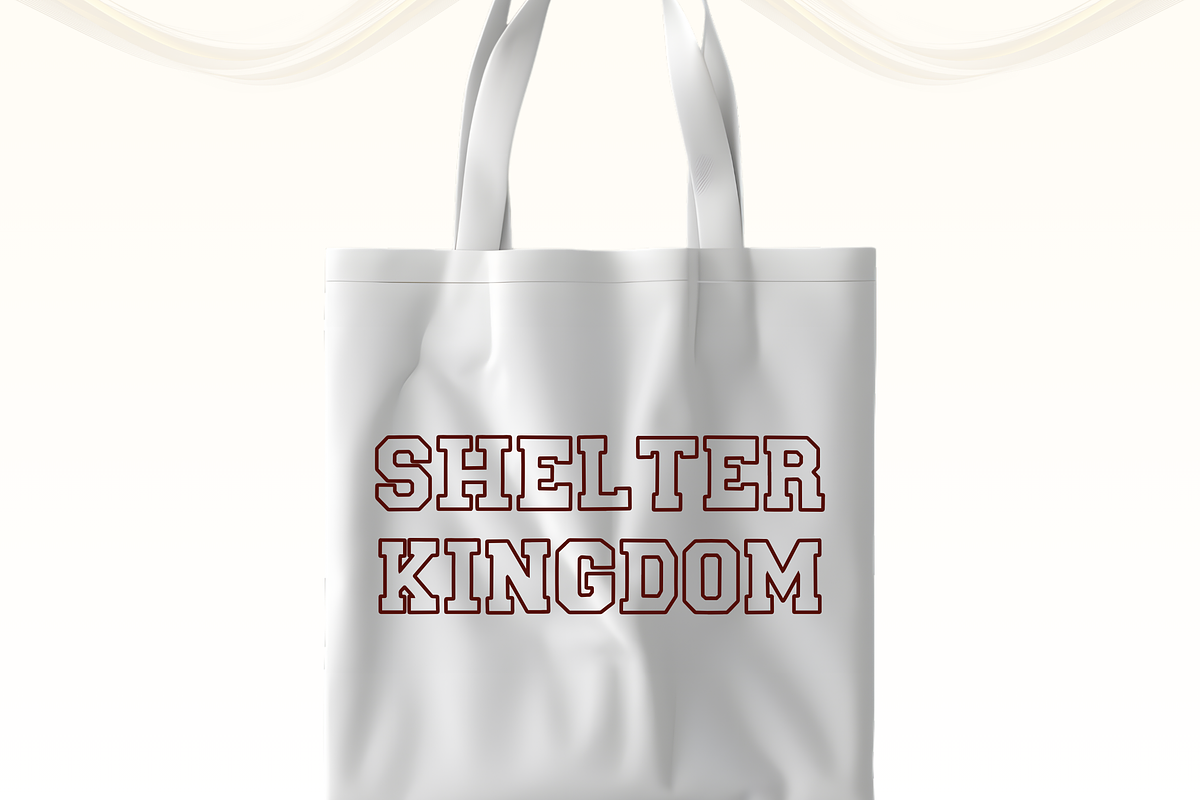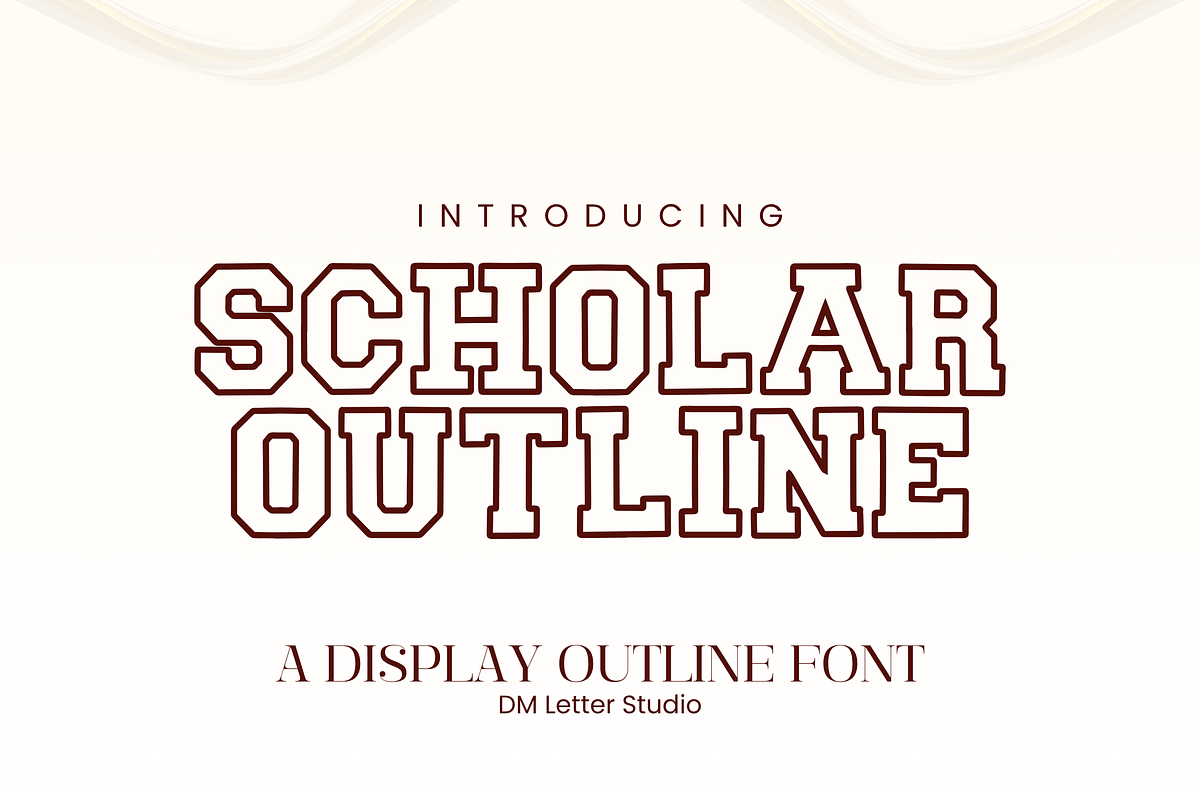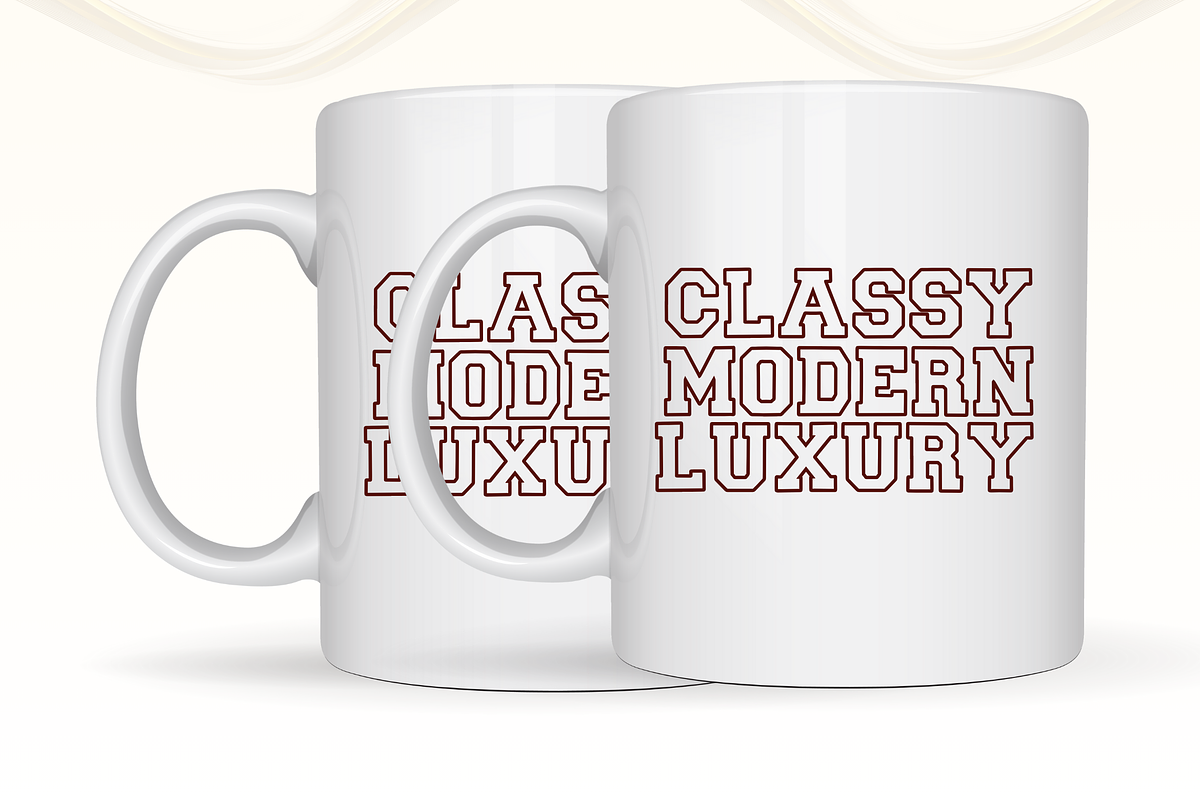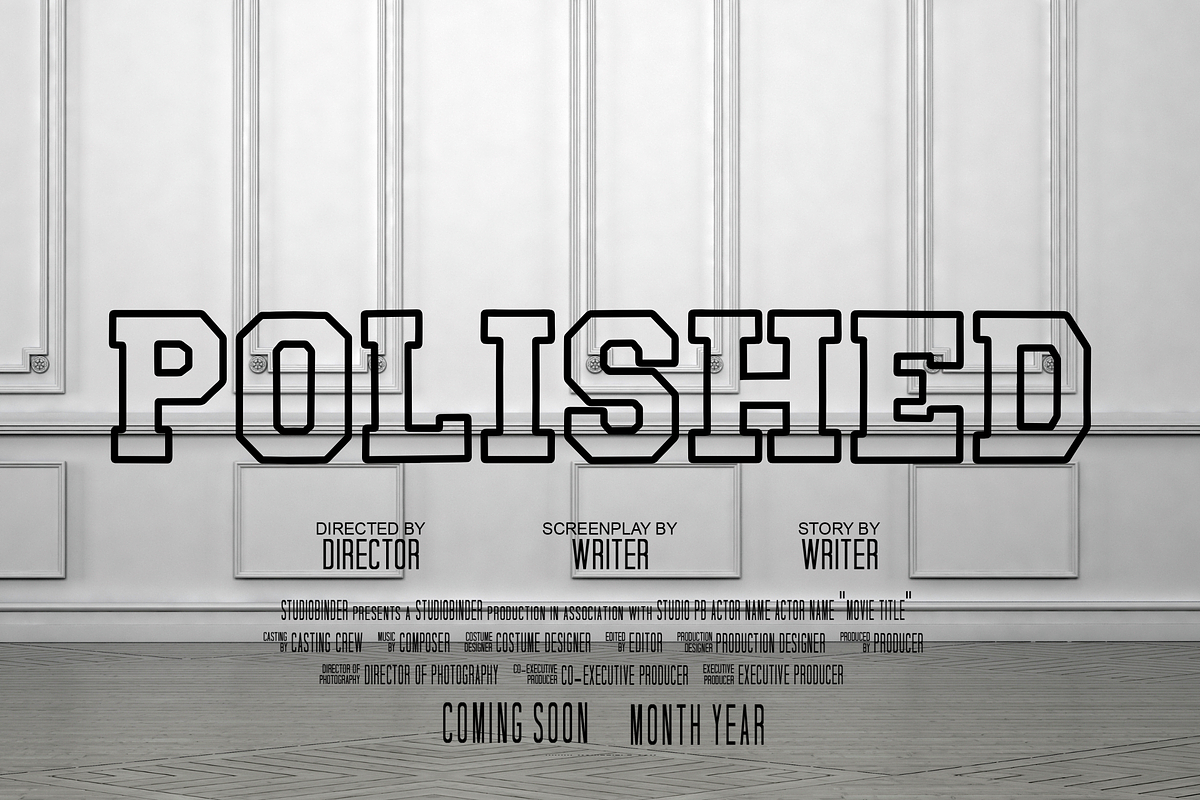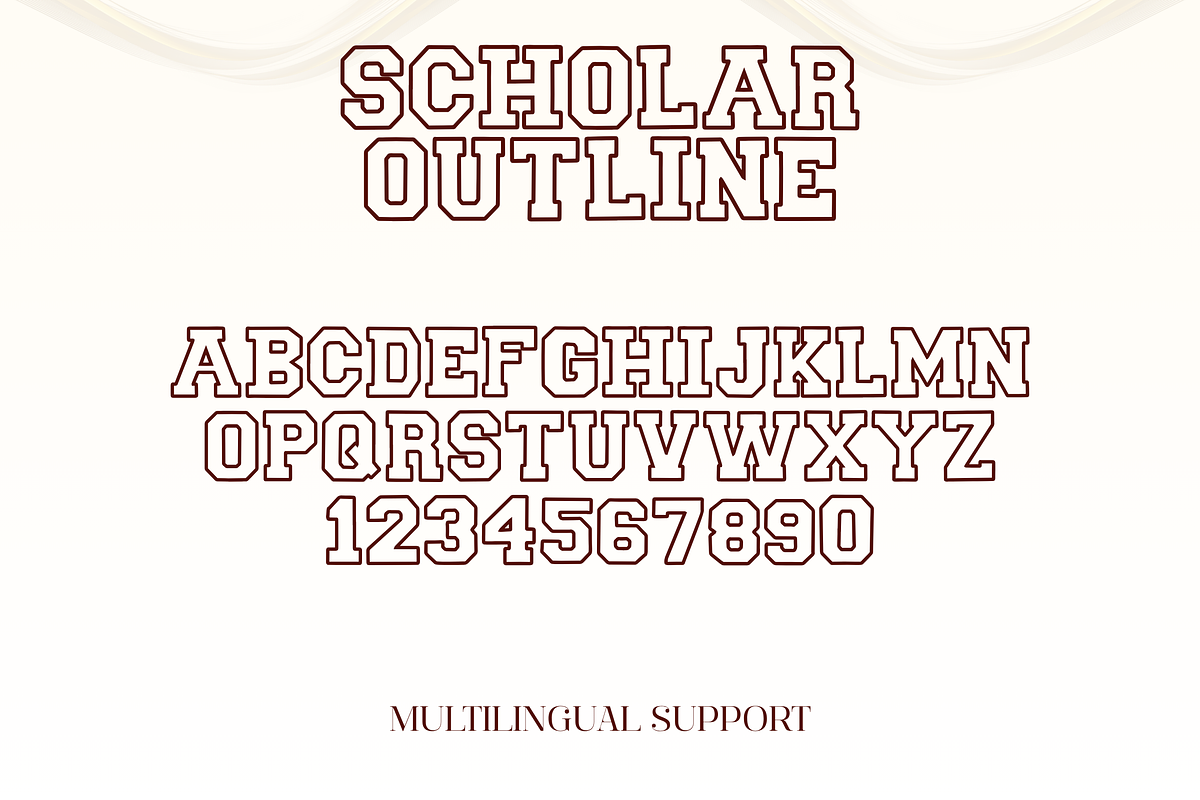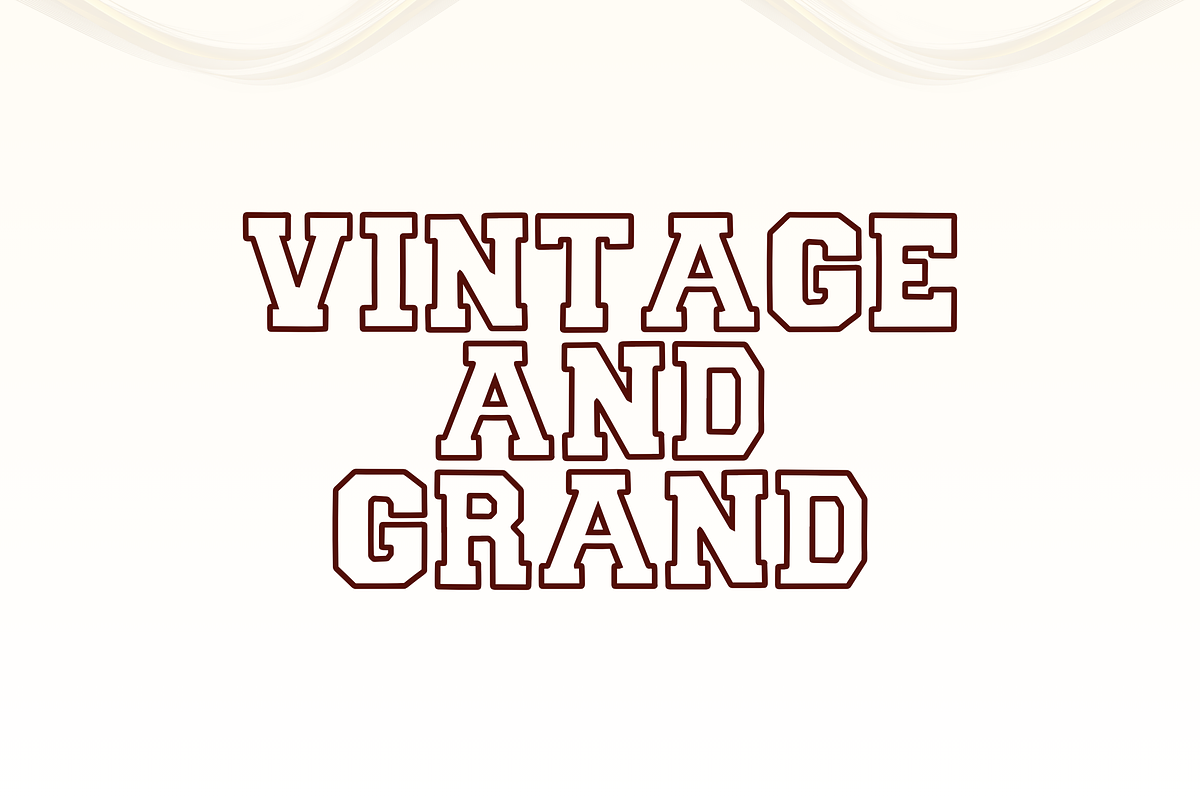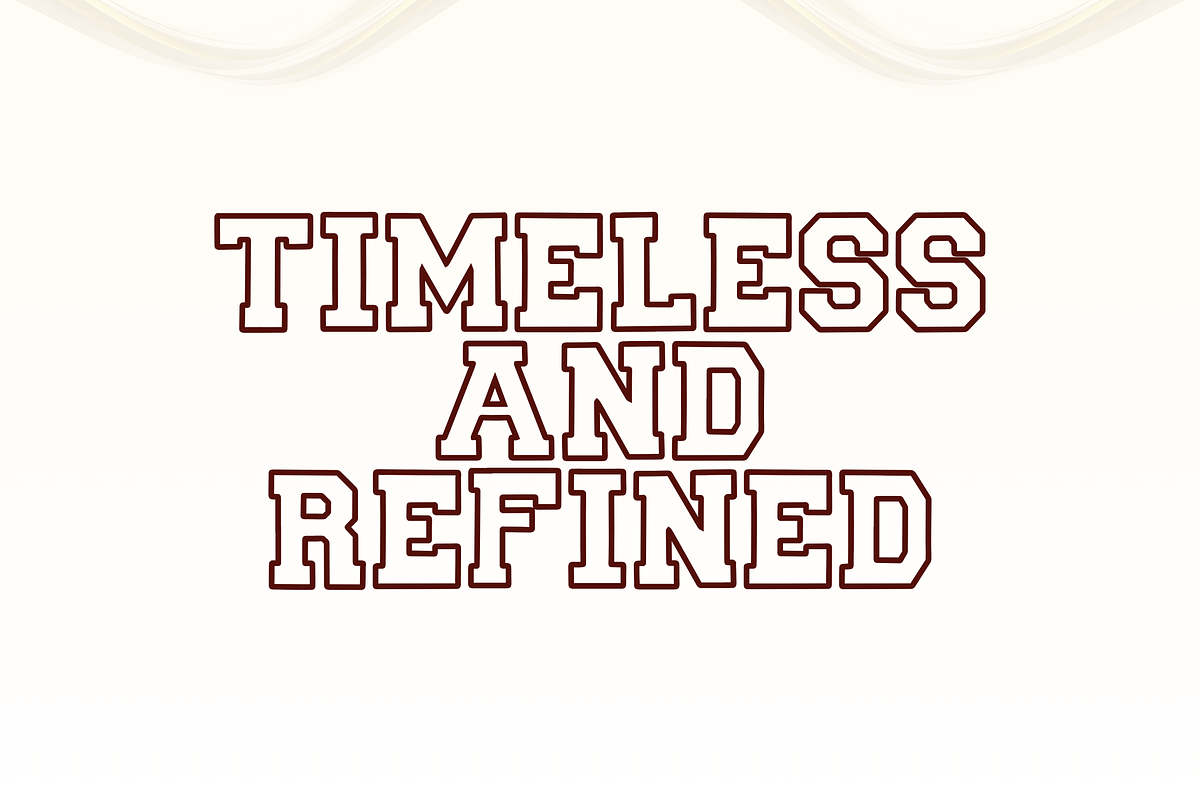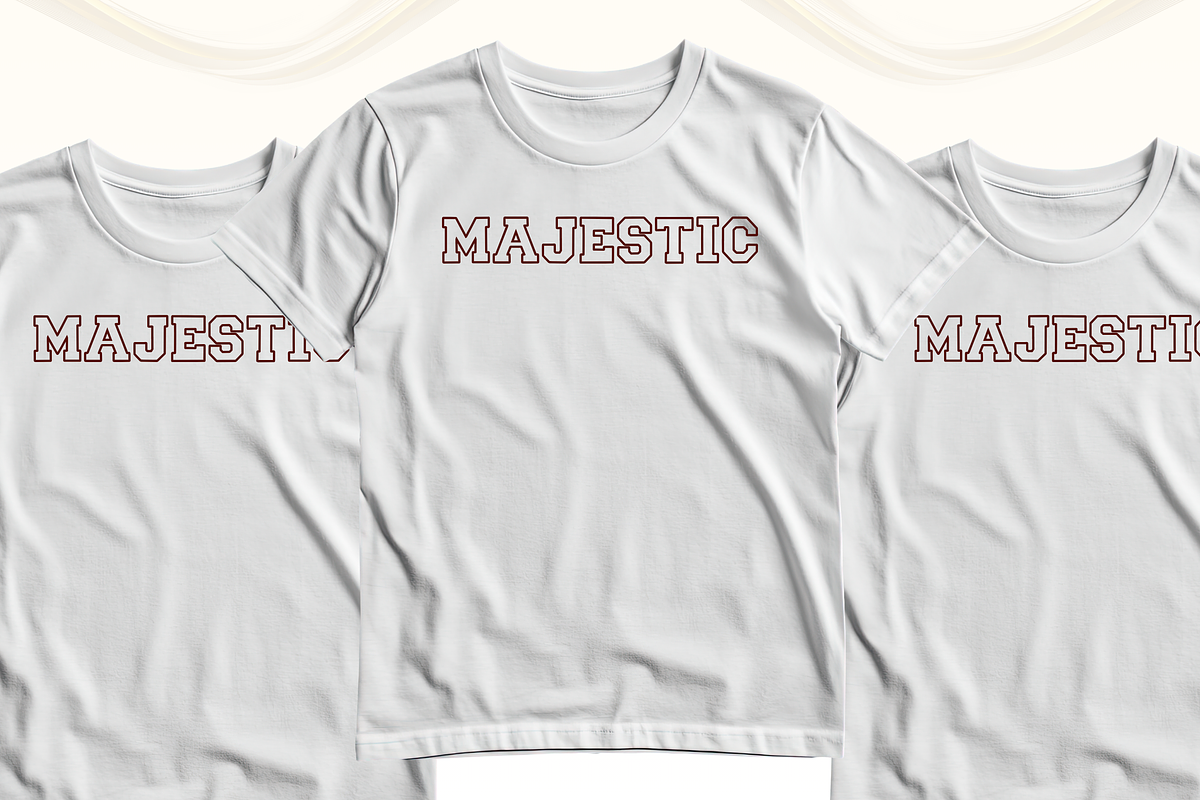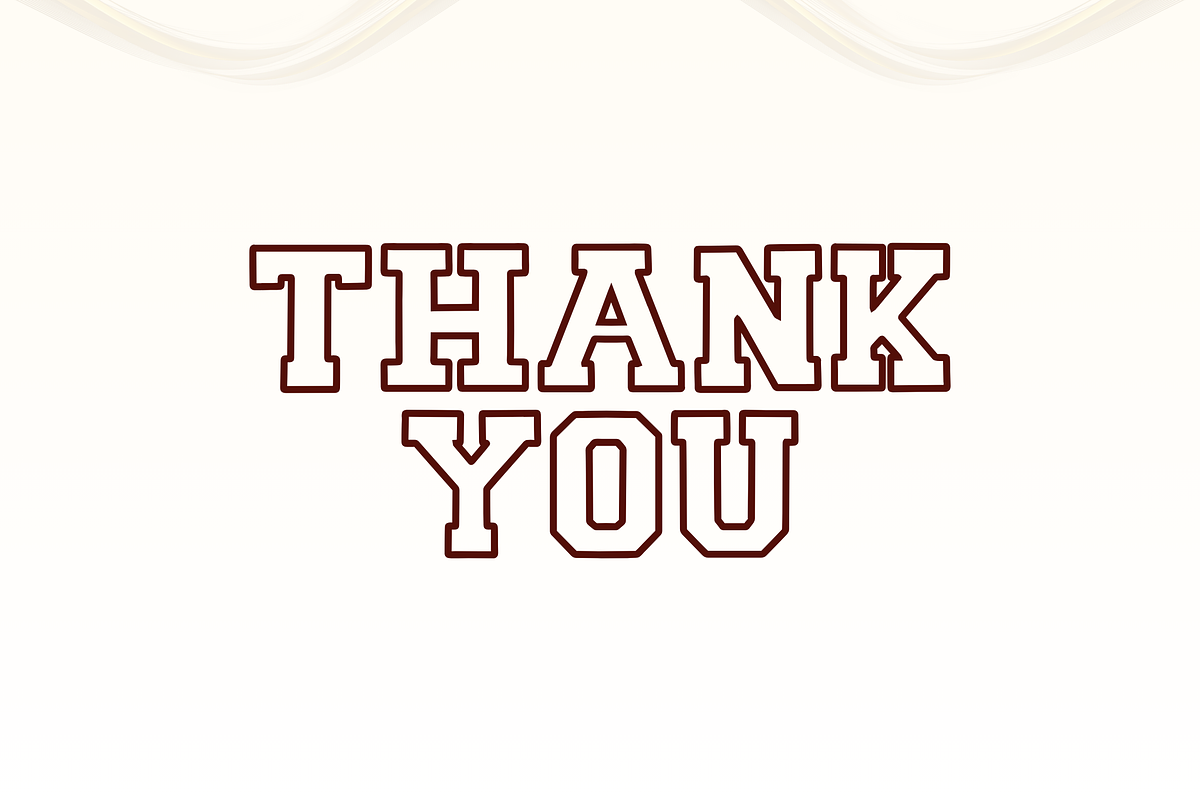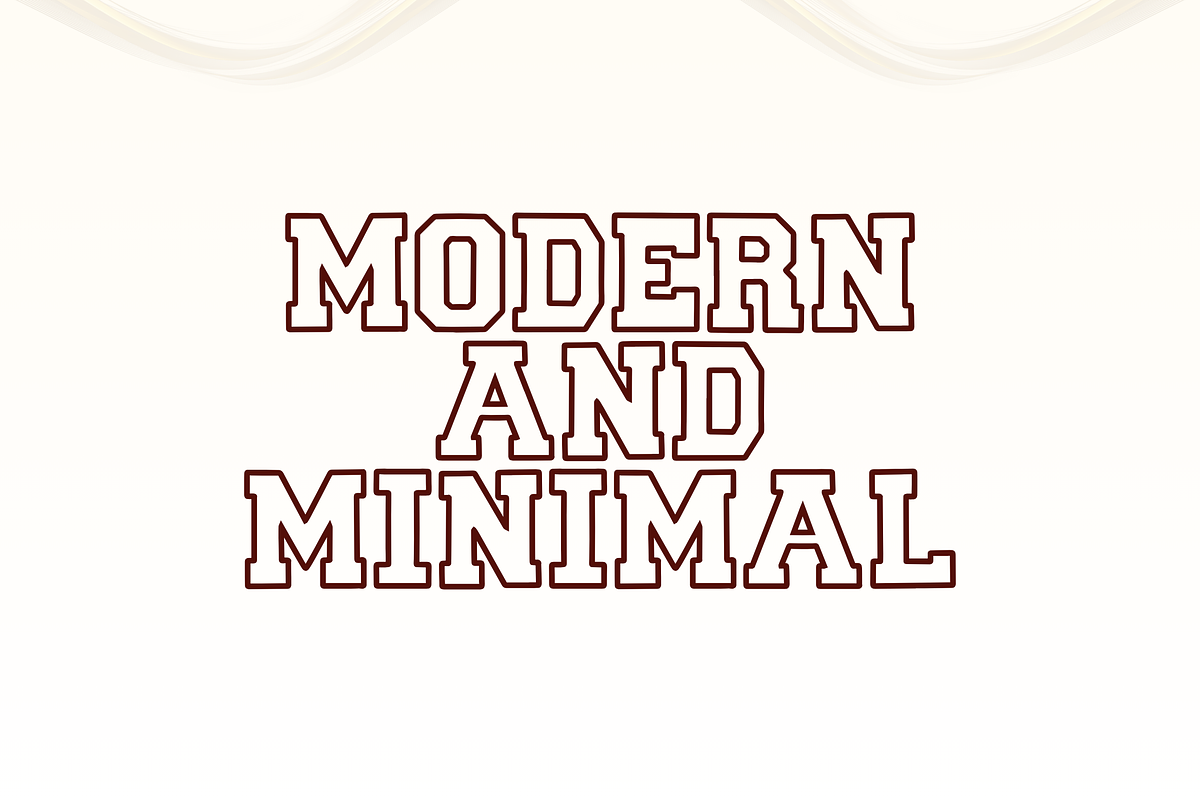
Scholar Block Outline
Meet Scholar Block Outline, the Display Font
Scholar Block Outline is a bold collegiate outline font built for clean, high-impact typography. It keeps the classic varsity block structure, but the open outline style makes it feel lighter, more modern, and perfect for layered designs. The letter shapes are strong and readable, so headlines stay sharp while giving you room to add color, patterns, or textures inside. Use Scholar Block Outline for sports branding, school merch, team posters, badges, packaging, and social media graphics. As a result, your designs look athletic, confident, and easy to customize.
Fast layouts with the Scholar Block Outline Font
Start with short team names or bold initials to highlight the outline shape. After that, fill the inside with a solid color or add a simple pattern like stripes or dots. Because outline strokes can get thin at small sizes, keep it for headlines, logos, and larger prints. In addition, it looks great inside shields, circles, and banner badges. Finally, save palettes like navy and white, red and cream, black and gold, or forest green and ivory for quick varsity sets.
Creative uses and quick wins
- Team logos, jersey-style graphics, and tournament posters
- School club merch, hoodies, and patches
- Badge designs, labels, and packaging accents
- Social media headers and athletic quote posts
Design tips for Scholar Block Outline
Use it for big headlines and keep supporting text simple. Also, avoid shrinking it too small so the outline stays crisp. For print, export at 300 DPI and test a small sample before vinyl cutting or embroidery. For digital, scale up slightly to keep edges sharp on mobile. Finally, add a second layer behind it for a classic varsity shadow effect.